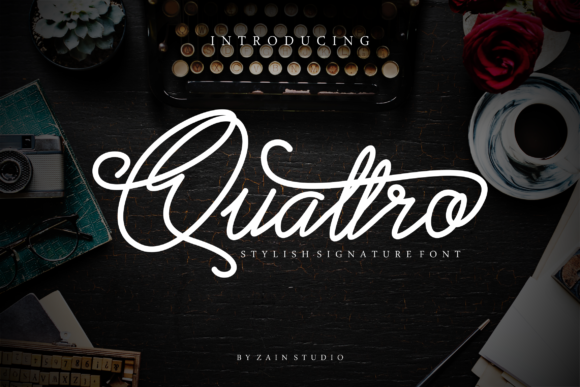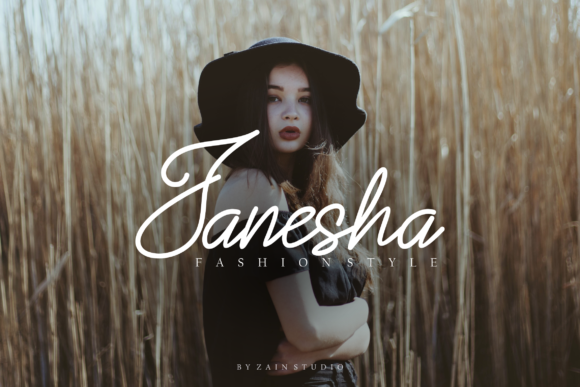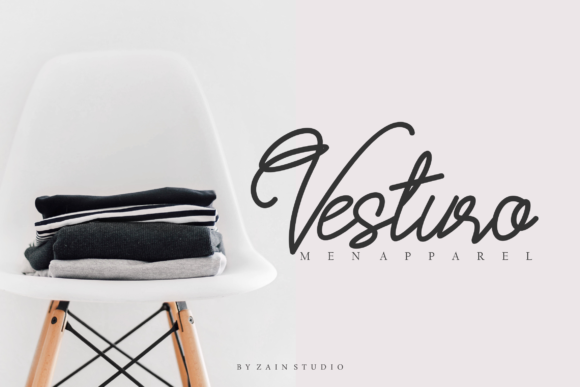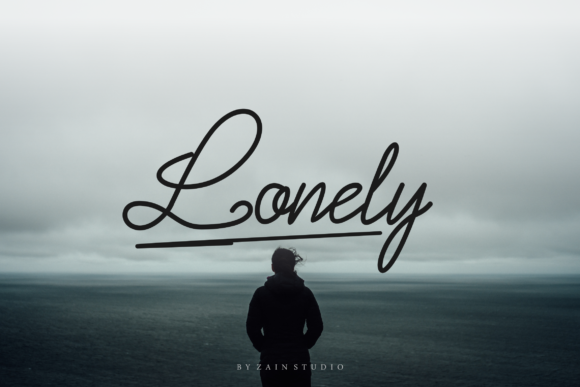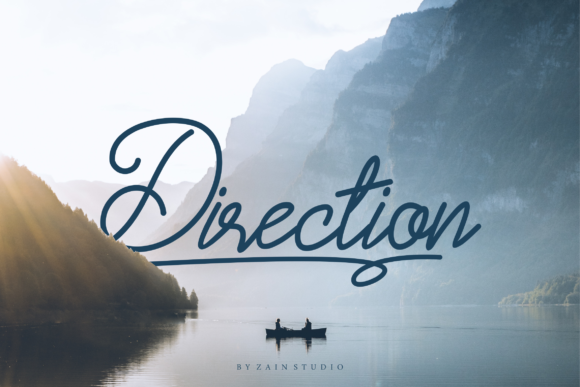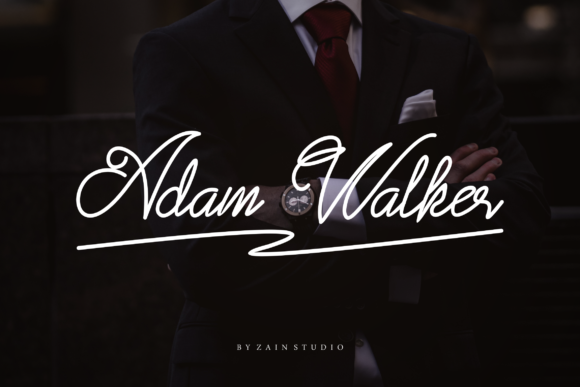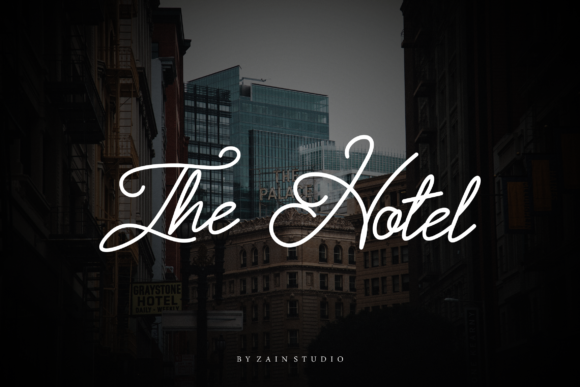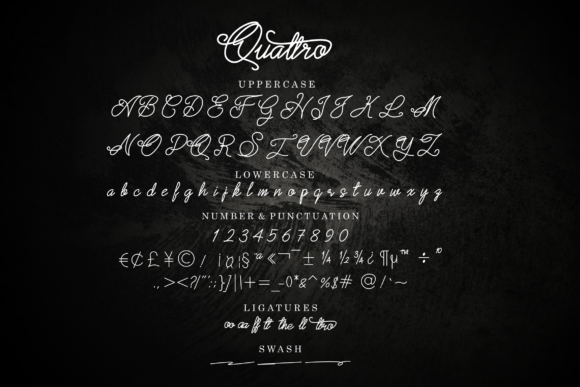
Quattro Font
About Quattro Font
Introducing “The Quattro,” a stylish handwritten script font designed to bring an elegant feel and personal charm to your projects. This font is more than just a typeface; it’s a design asset crafted with sophistication, making it perfect for a wide range of designs that demand a touch of elegance and personalized charm.
“The Quattro” stands out with its stylish handwritten script that exudes an elegant and charming feel. Whether you’re working on branding, invitations, logos, quotes, or any project that requires a touch of sophistication and personalization, this font delivers with its distinctive and refined style.
Its elegant feel and personal charm make “The Quattro” suitable for various applications. Logos designed with this font convey a sense of style and individuality, creating a memorable and distinctive brand identity. Branding materials, invitations, quotes, and other designs crafted with “The Quattro” carry an elegant and personalized vibe, making them visually striking and appealing.
The versatility of “The Quattro” makes it a great choice for a variety of creative applications, providing an elegant and handwritten look that adds a touch of personal charm to any design context.
In summary, “The Quattro” is more than just a font; it’s a design companion that brings a stylish handwritten script style with an elegant feel to your projects. Embrace its sophistication for branding, invitations, logos, and more, and let “The Quattro” enhance your designs with a touch of personal charm.